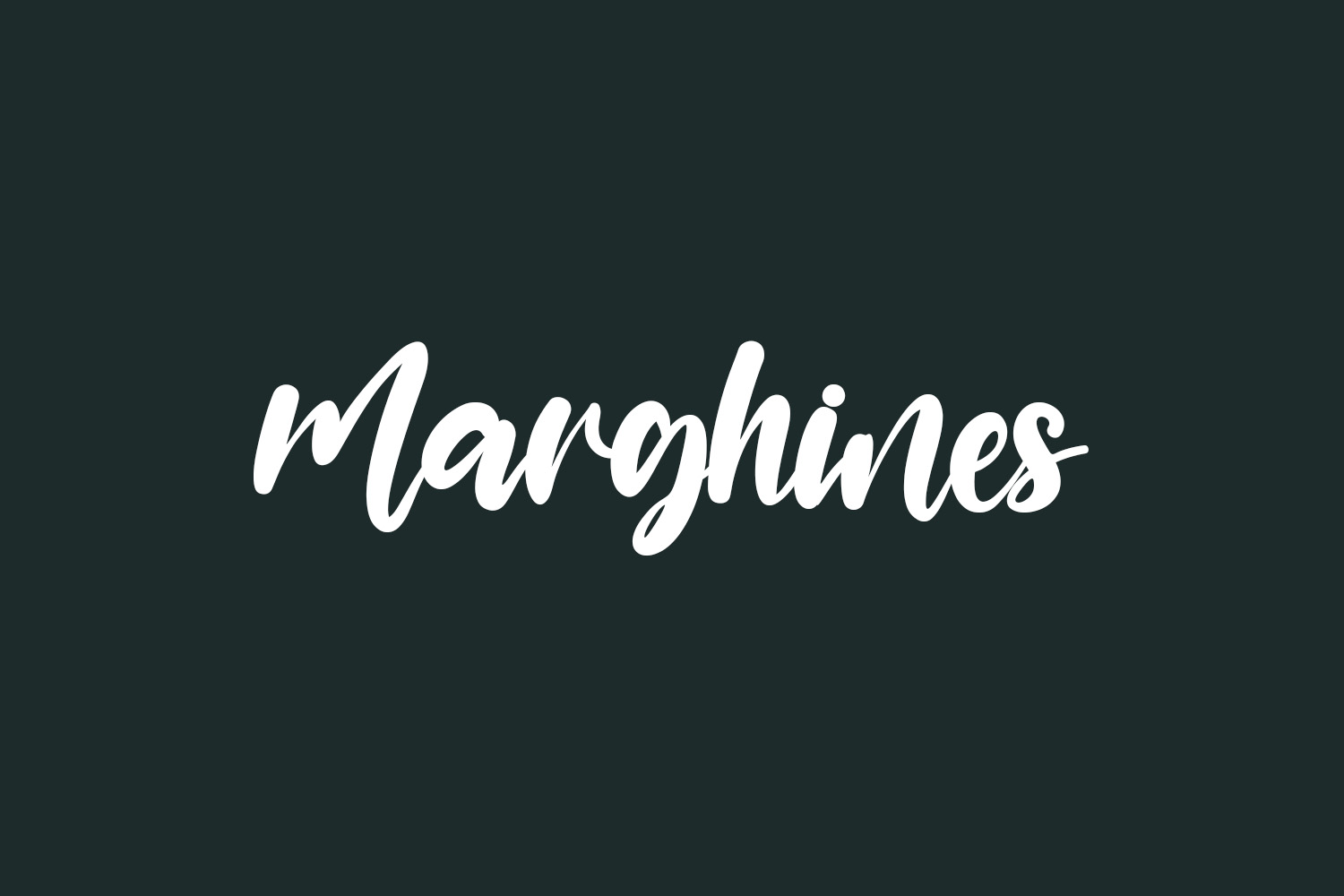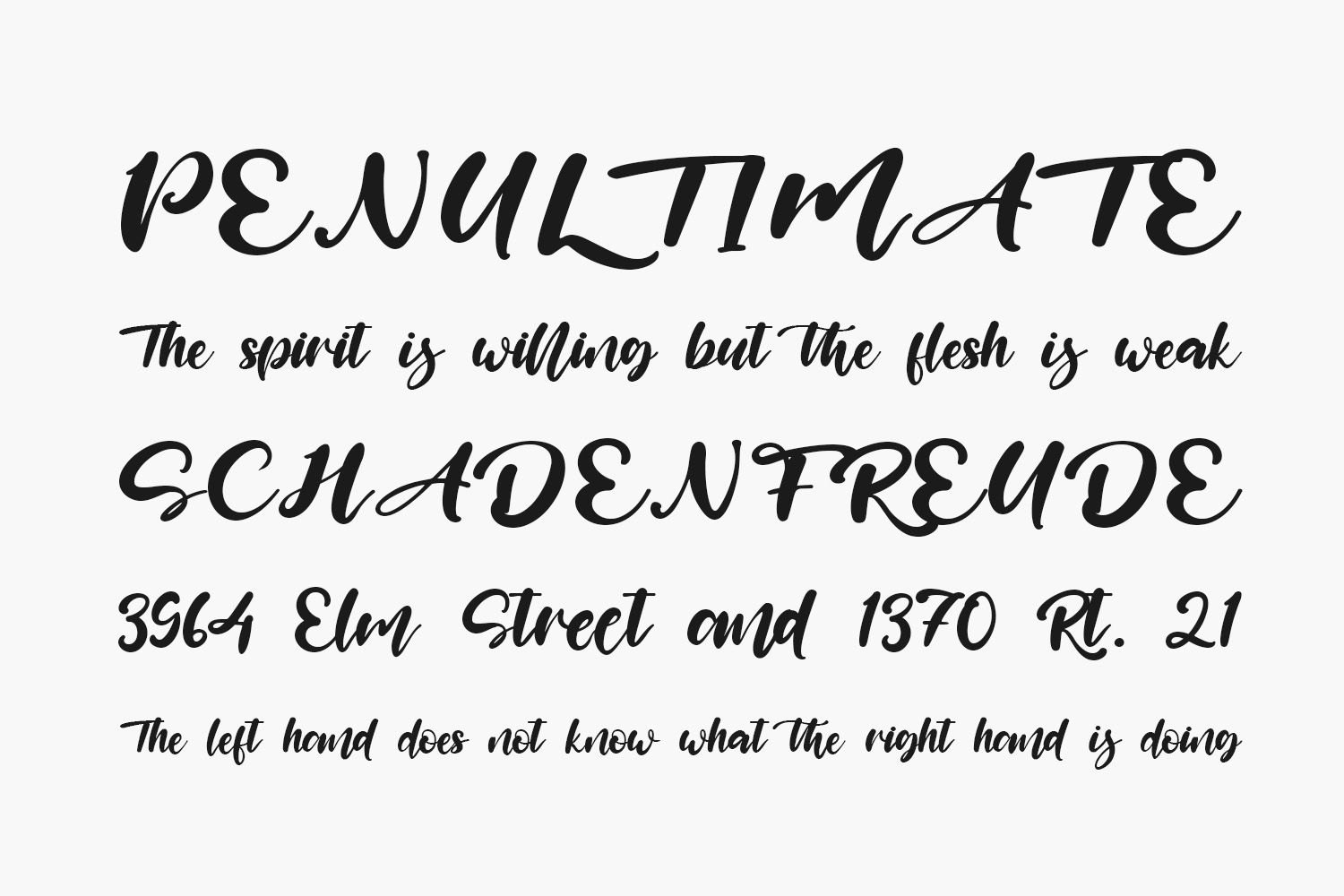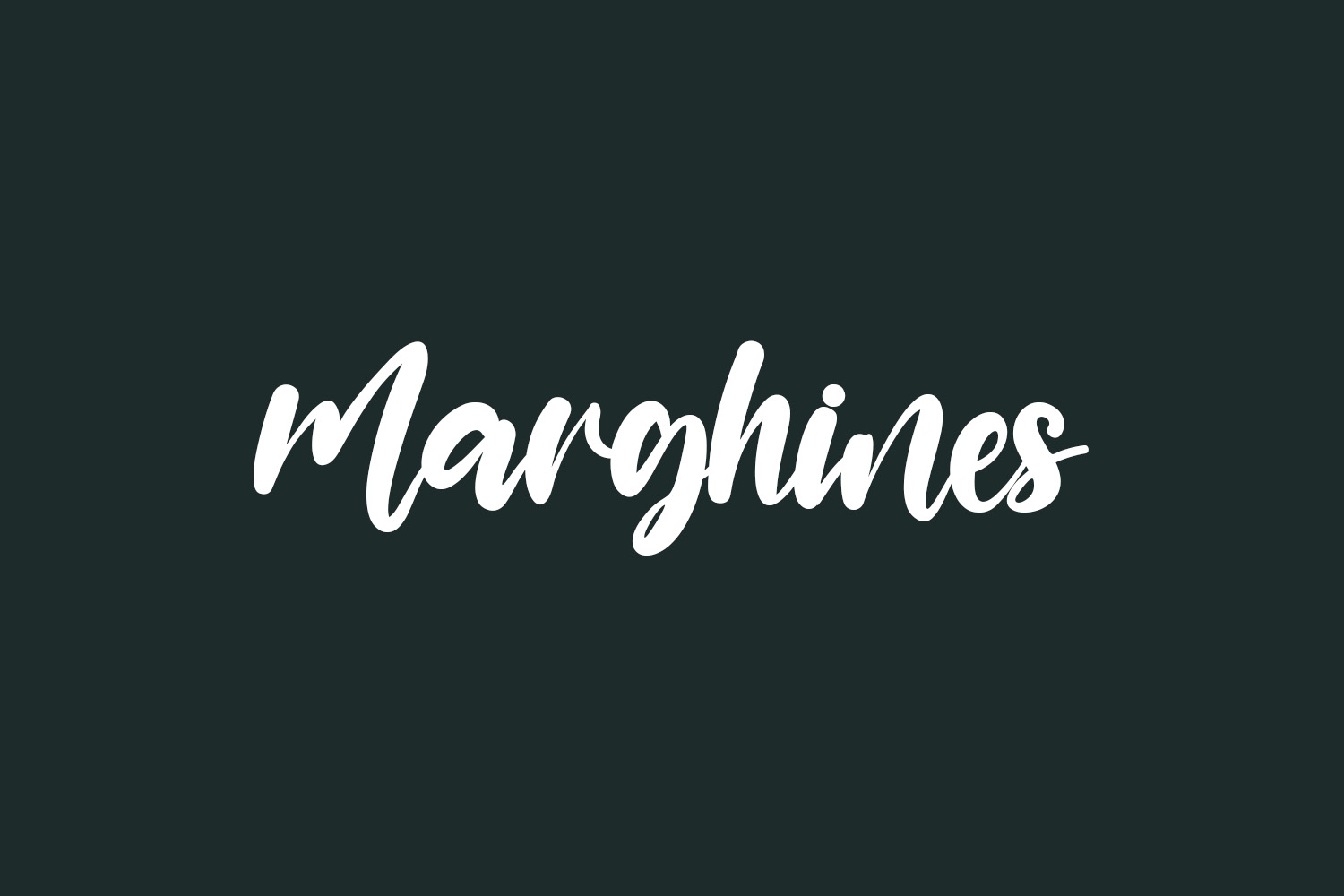
Marghines Free Font stands as a contemporary and lively handwritten script font, radiating a sense of modernity and playfulness. An excellent choice for both crafters and designers alike, this font seamlessly integrates with popular tools like Photoshop and Silhouette Design Studio. Its inherent playfulness lends itself perfectly to a wide array of creative projects, enhancing their visual appeal and adding a touch of artistic flair. Marghines Free Font is free for personal use only. Please purchase the full version for commercial use.